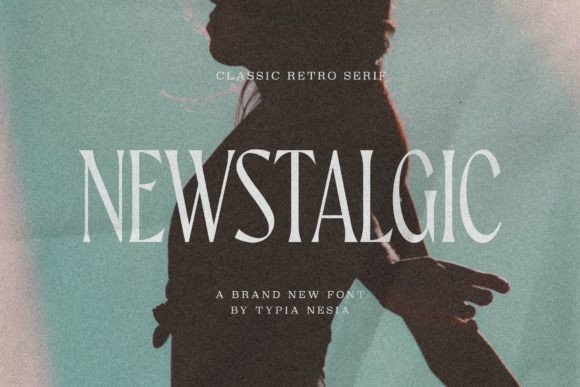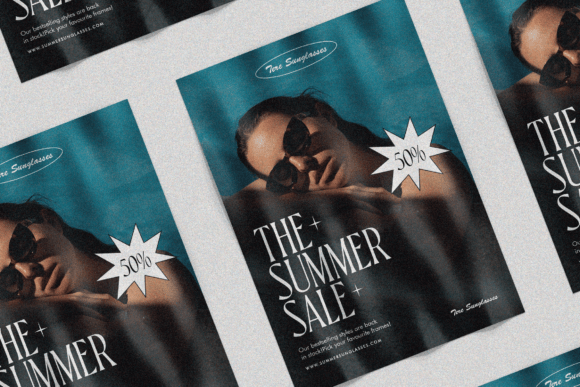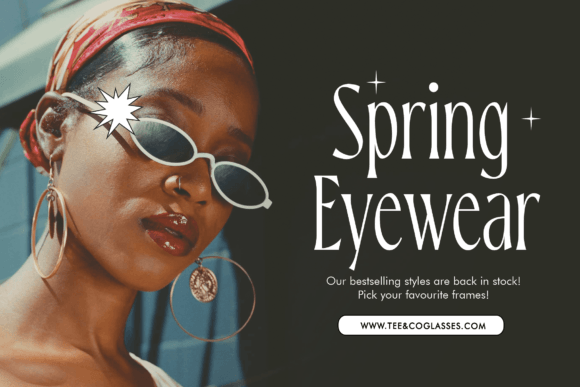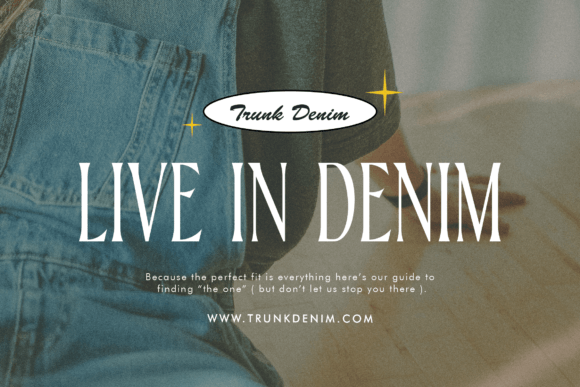
Newstalgic Font
About the Newstalgic Font
Step up your design game with Newstalgic Font, a font that exudes confidence and style. Newstalgic is a sophisticated, charming serif font with a fashionable touch. Specially designed for luxury, elegant, feminine projects, this font is perfectly suitable for creating modern, chic designs.
Newstalgic excels in headline use, particularly for branding projects emphasizing luxury or high-end fashion. It’s also well-suited for short-form text on invitations, packaging, or marketing materials where elegance is key. Avoid using it for body copy or lengthy paragraphs; its delicate serifs can hinder readability in extended text.
Its sophisticated charm pairs beautifully with clean sans-serif fonts like Helvetica Neue for a modern contrast, or with a playful script font like Allura for a more whimsical feel. A geometric sans-serif like Montserrat could also provide a striking, contemporary balance.
Newstalgic projects an air of refined elegance and feminine grace. Its personality is sophisticated yet approachable, making it ideal for brands aiming for a timeless, luxurious image.
Newstalgic Font Usage Examples
Newstalgic Font Example